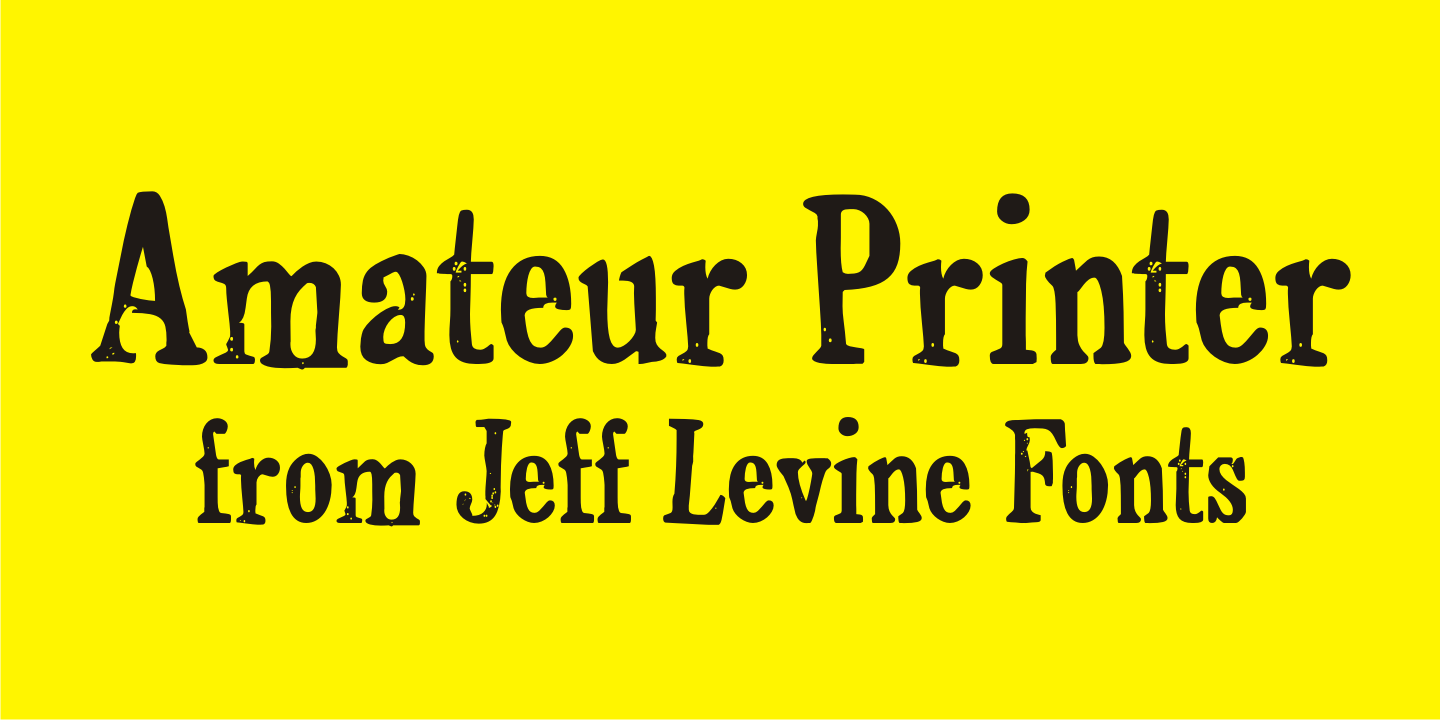
If you're looking for a vintage, typewriter-inspired typeface with a charmingly imperfect feel, Amateur Printer JNL Font Free Download is the perfect choice for your creative projects. This unique font replicates the look of old hand-operated printing presses and early amateur printing kits, making it ideal for retro posters, book covers, invitations, packaging, branding, and any design that needs an authentic, nostalgic touch.
Amateur Printer JNL Font combines vintage character with strong readability, making it versatile for both print and digital applications. It includes multilingual support and a variety of glyphs, giving designers flexibility to create distinctive, retro-inspired typography. Whether you're aiming for an old-school publishing vibe or a handcrafted aesthetic, this font delivers warmth, texture, and personality.